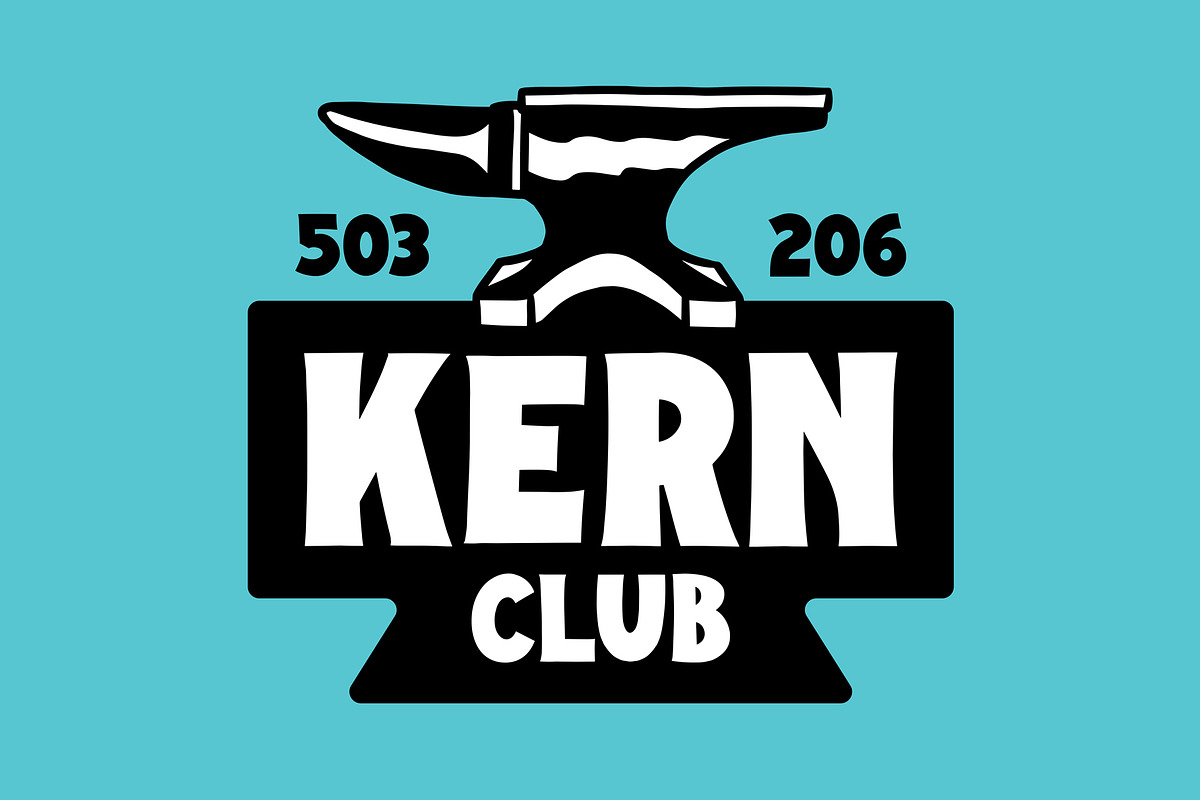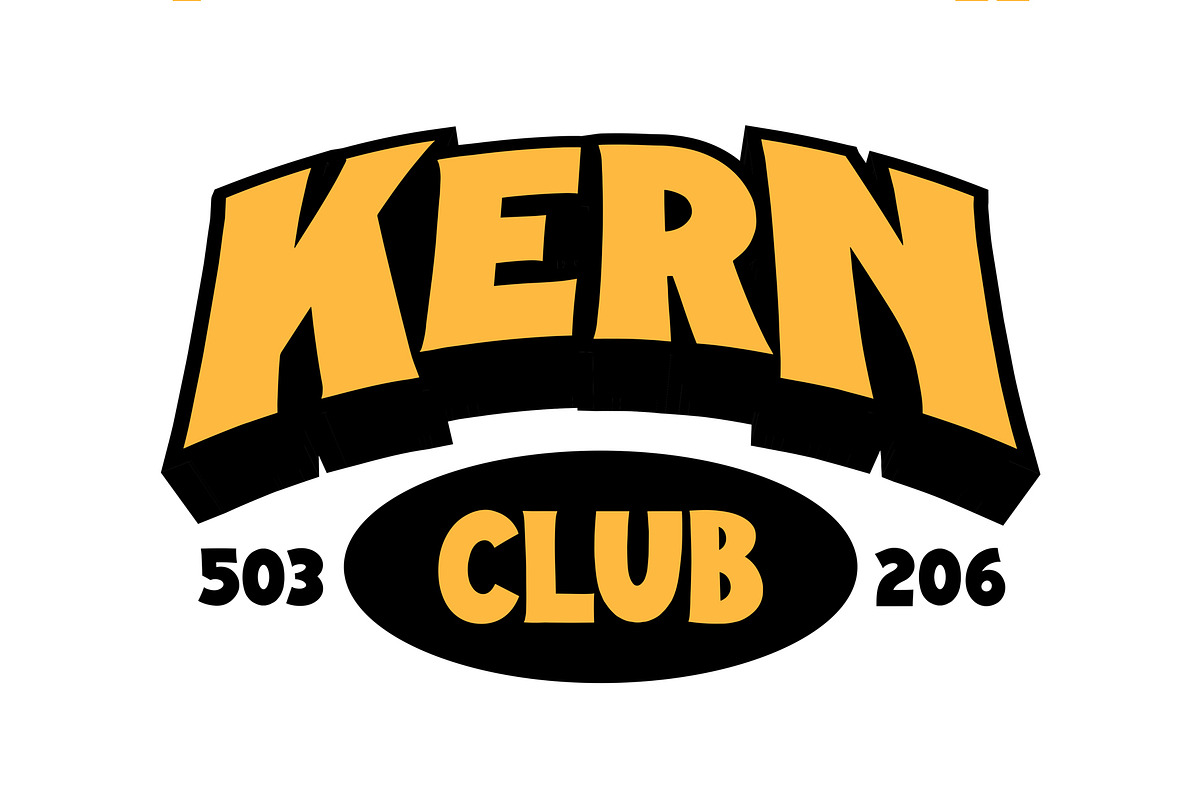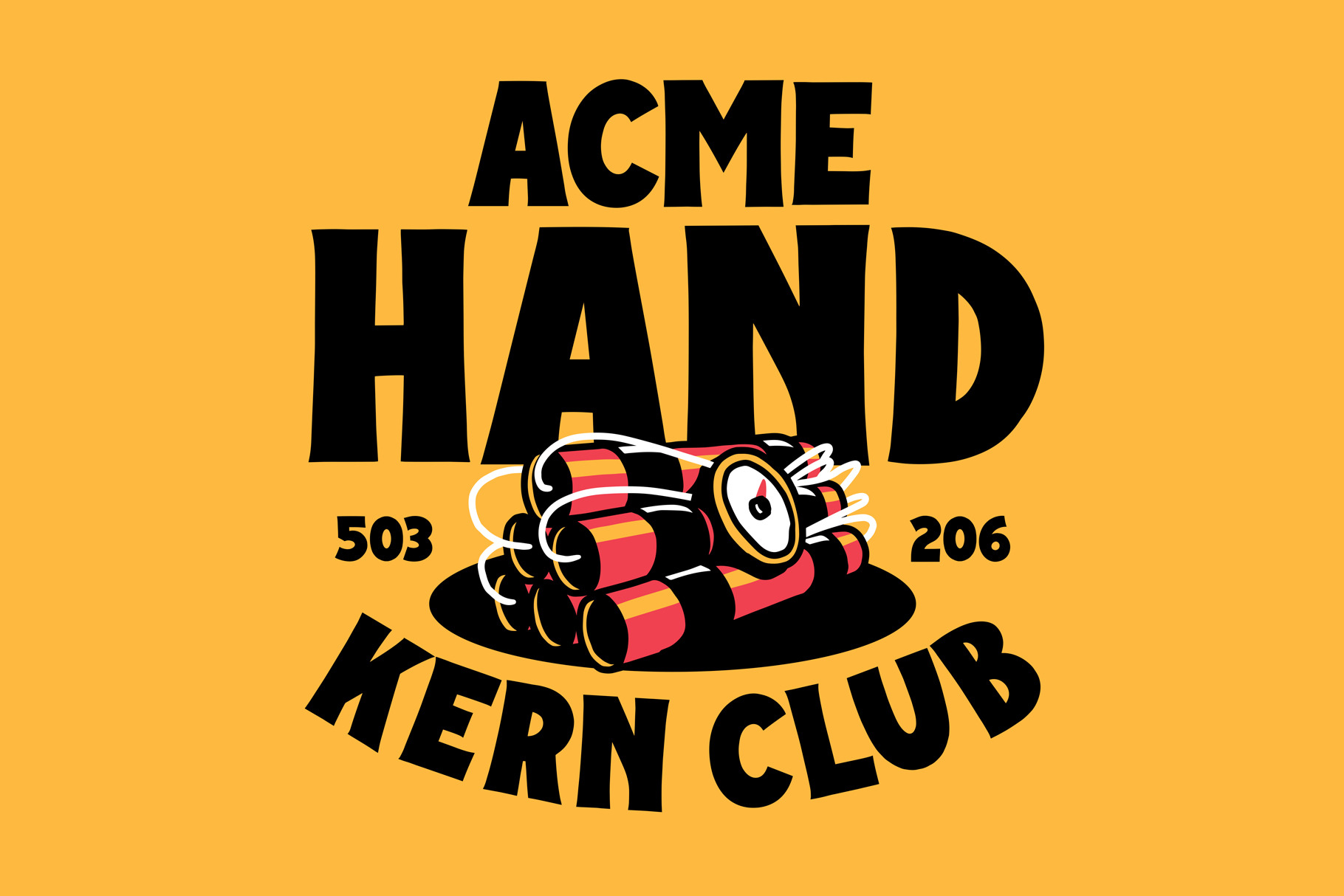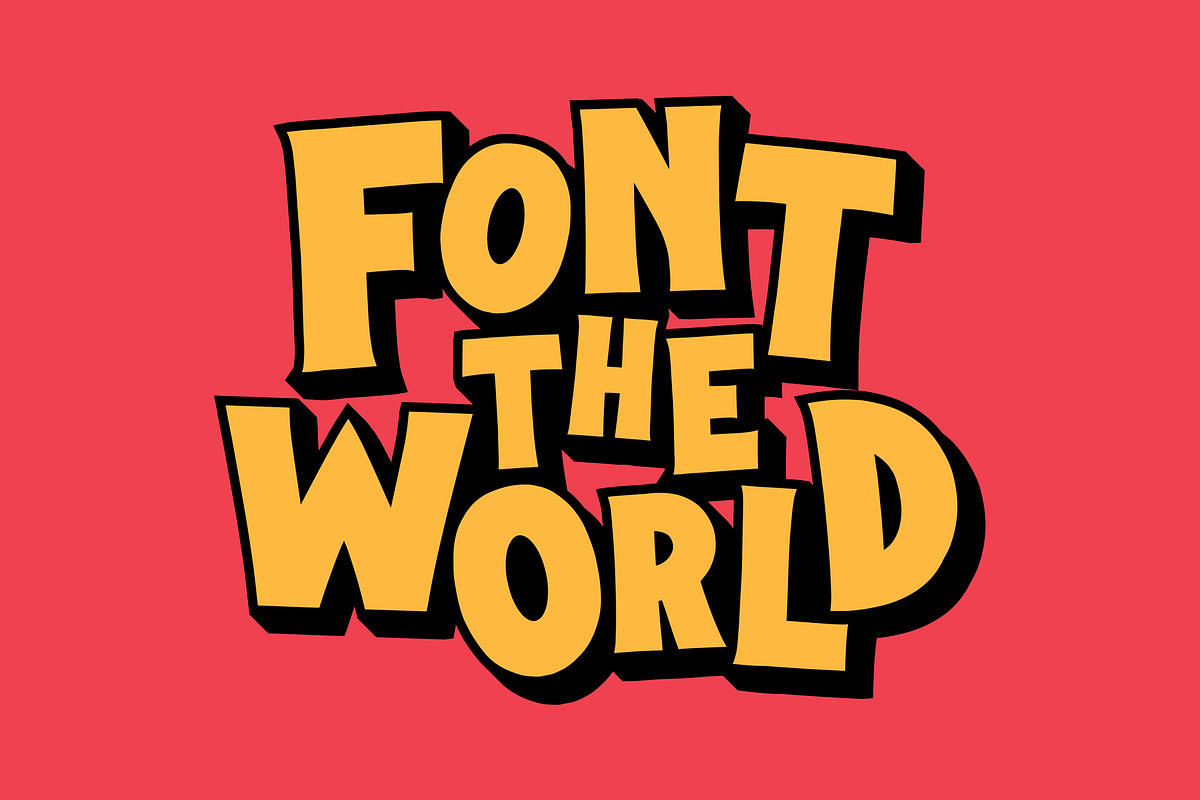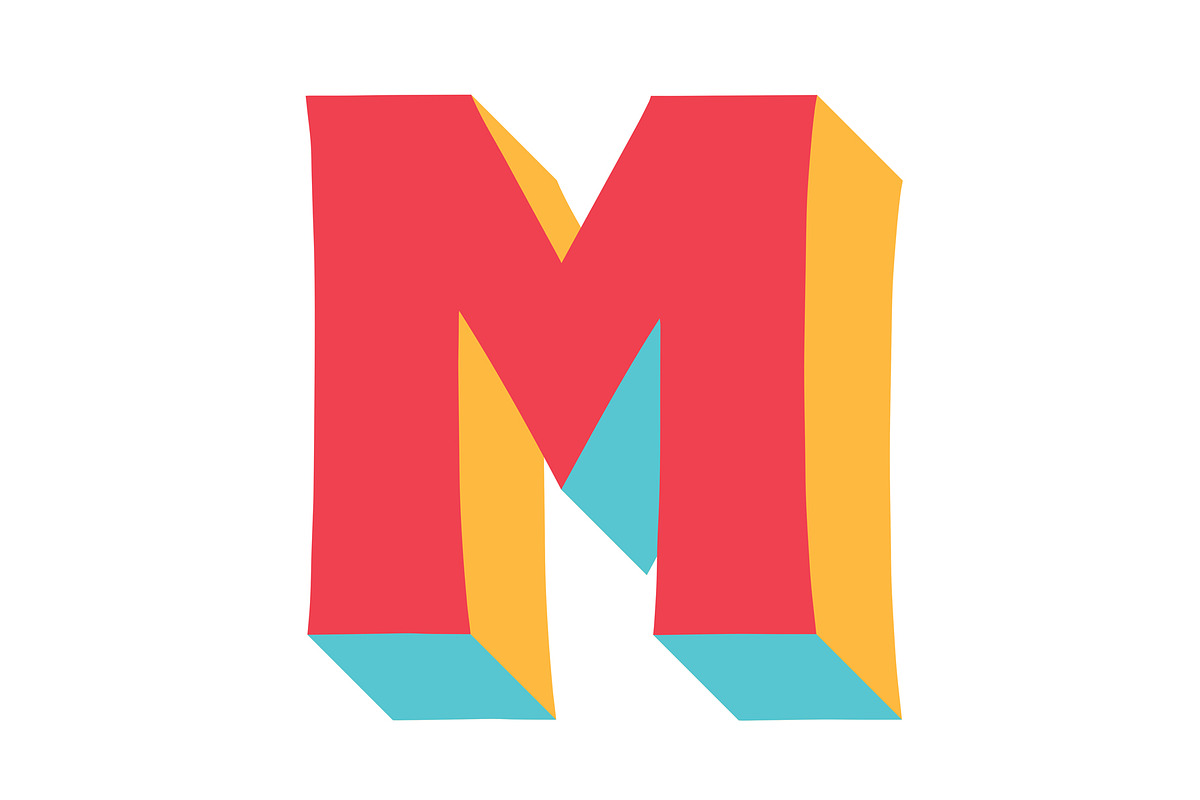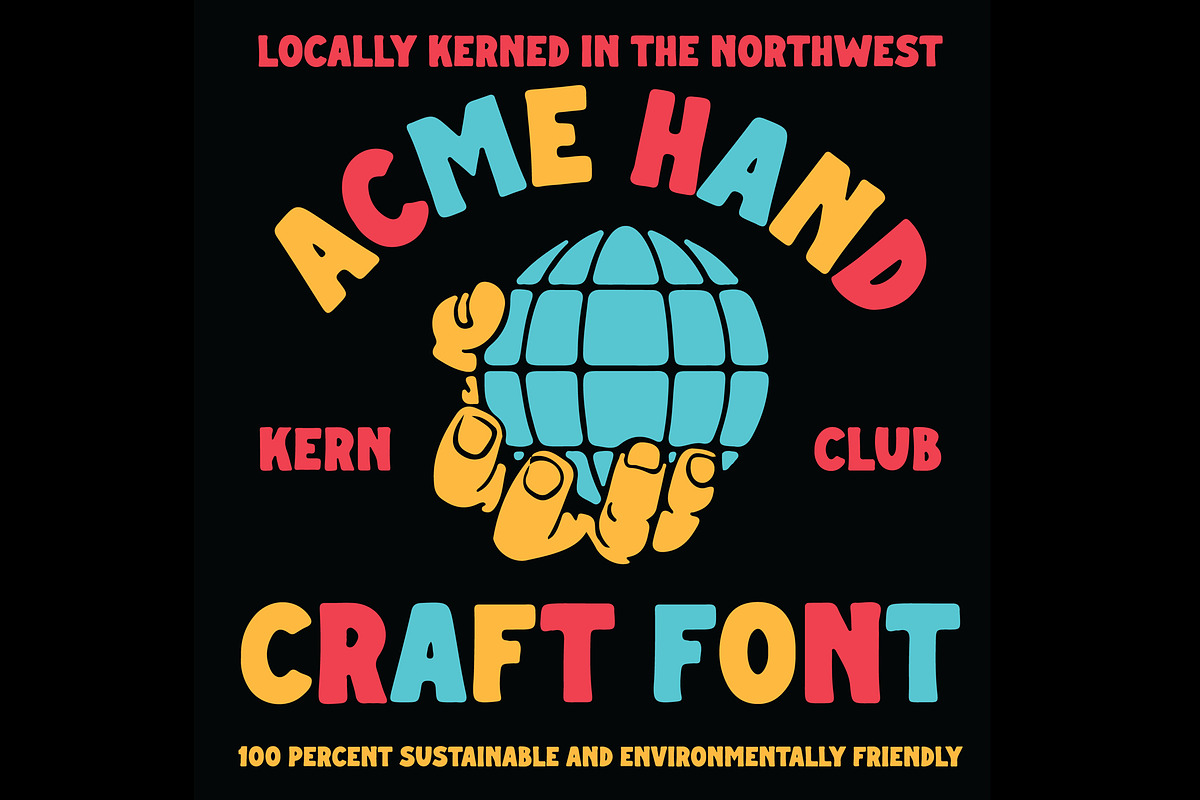
Acme Hand Font
Explosive font with a cartoony vibe.
- Uppercase Character Set A-Z
- Includes regular & inked versions
- Numerals & Simple punctuation